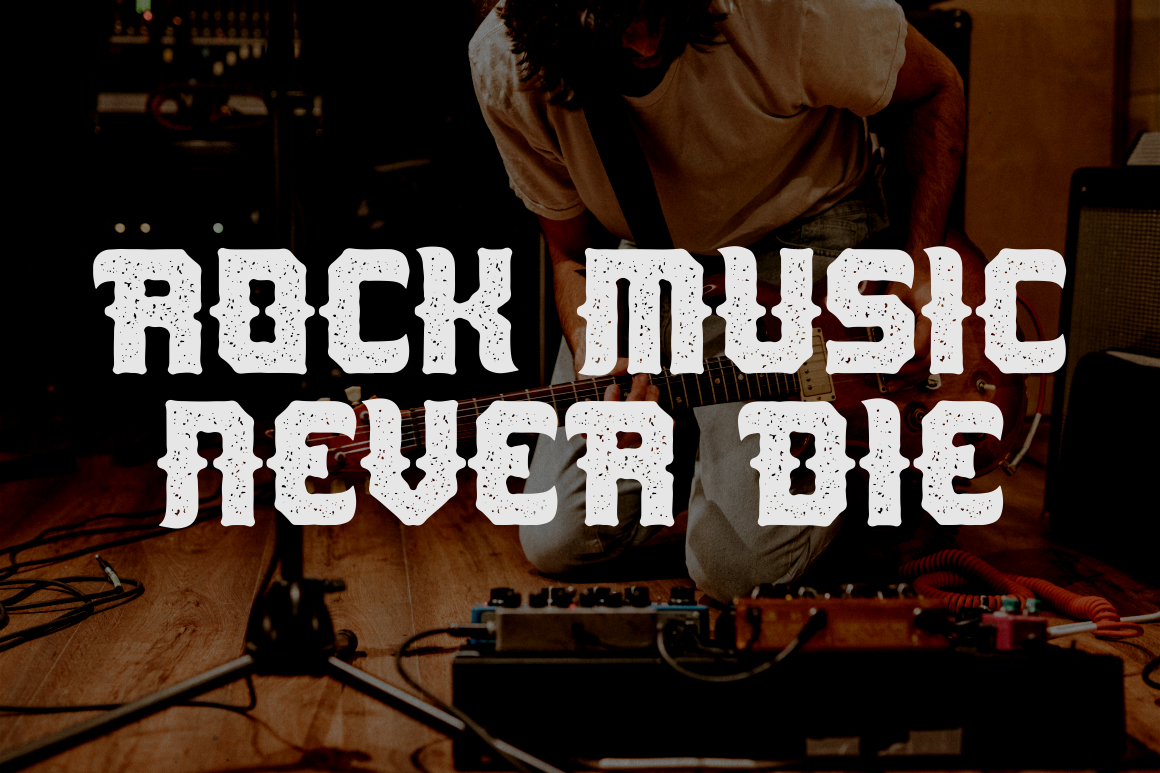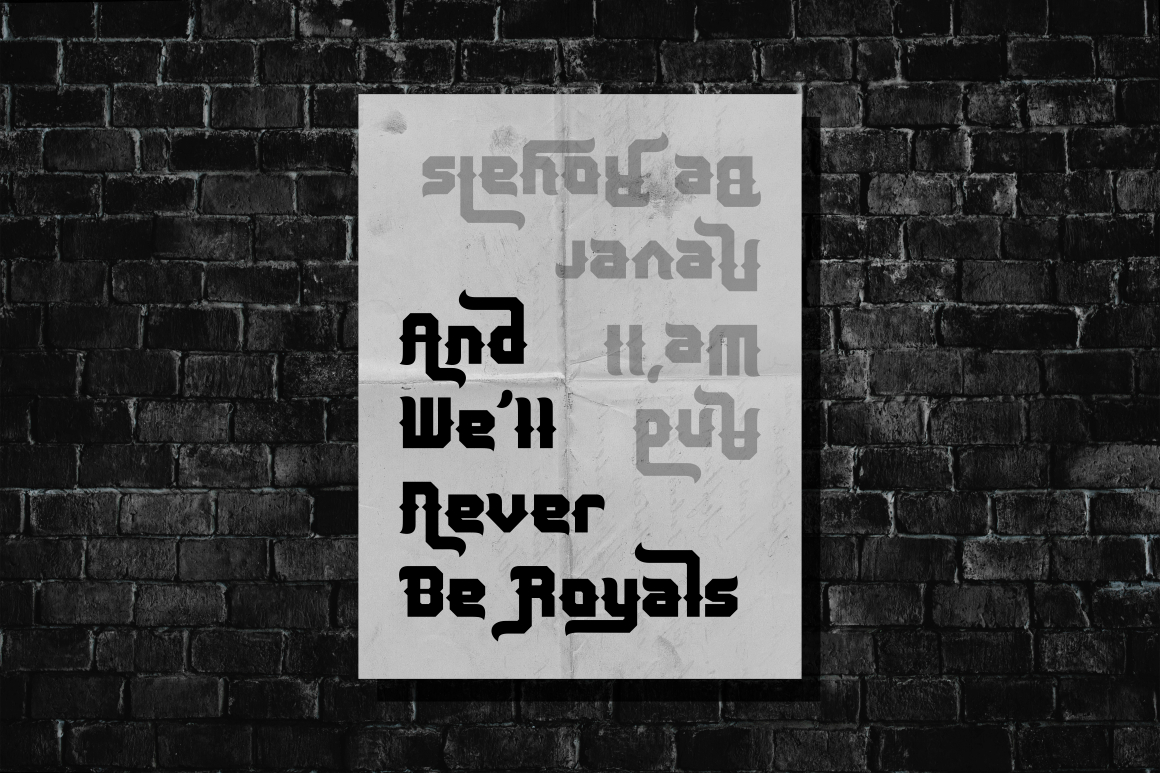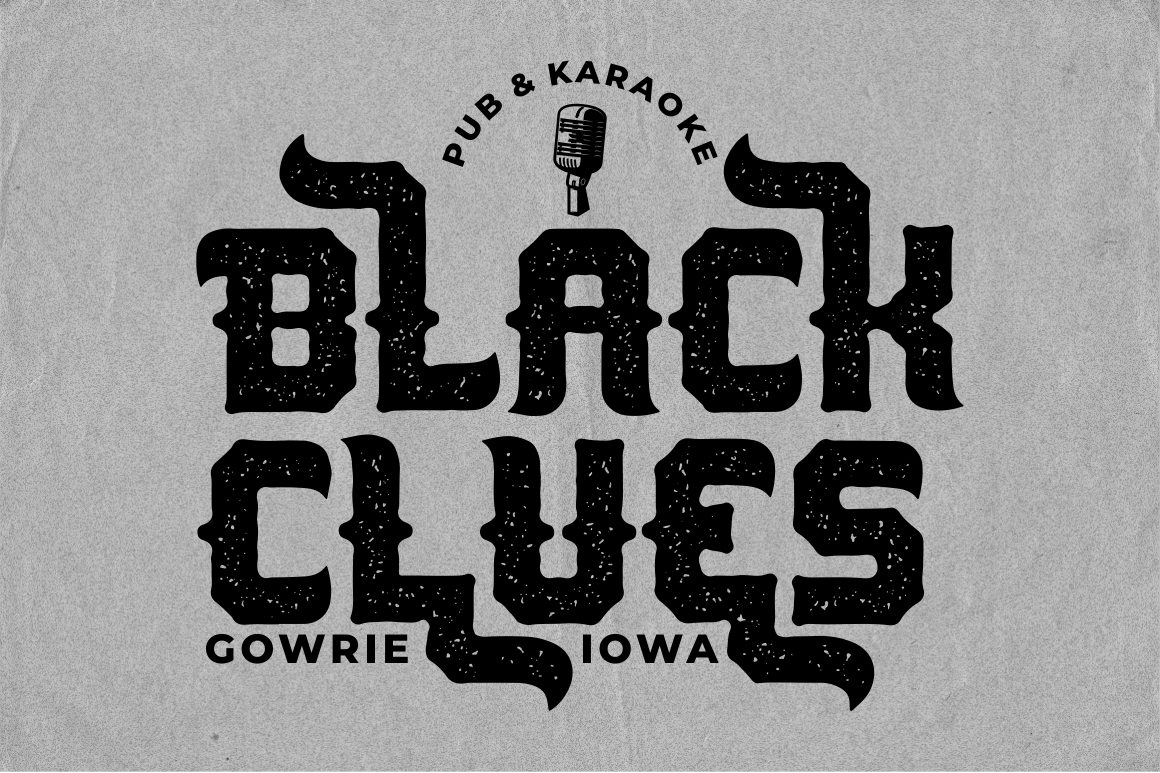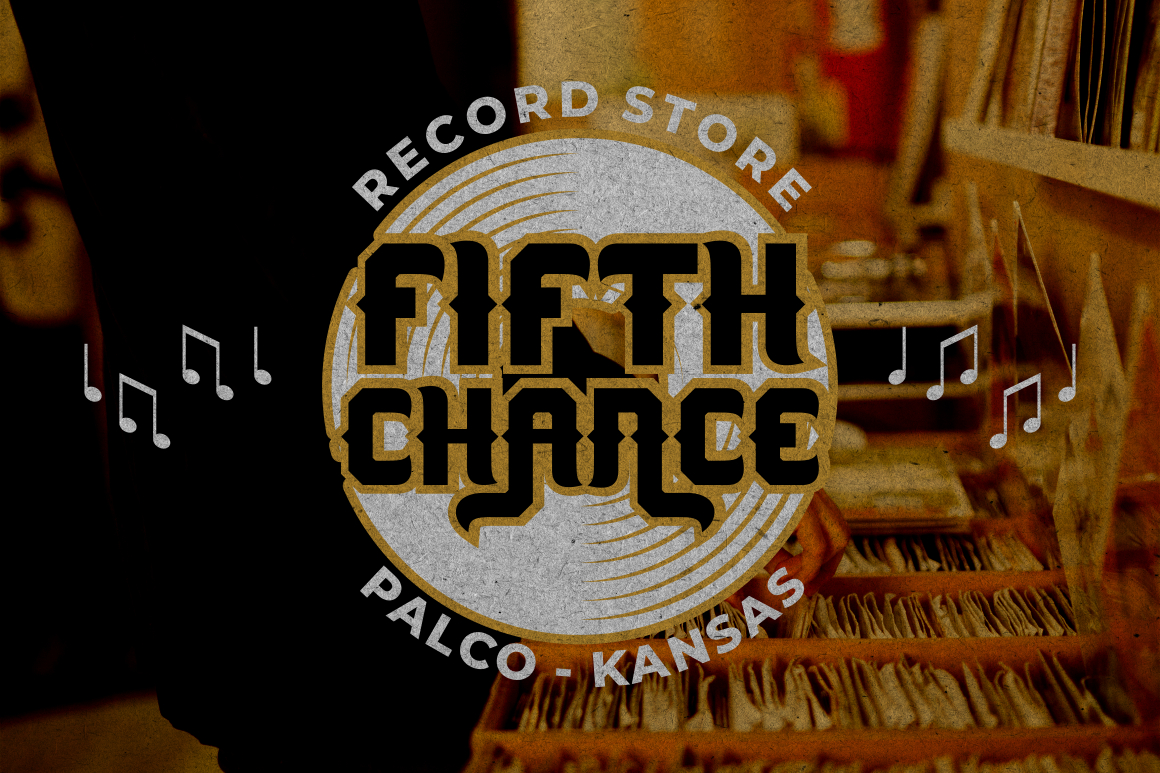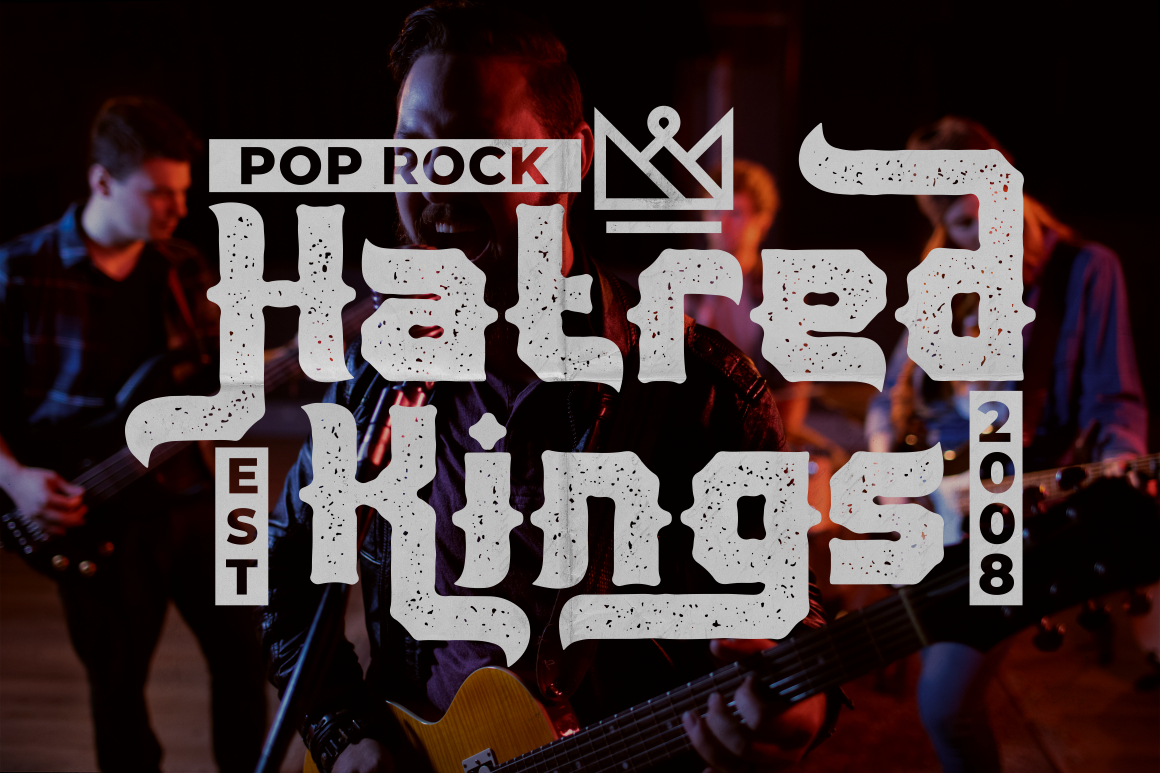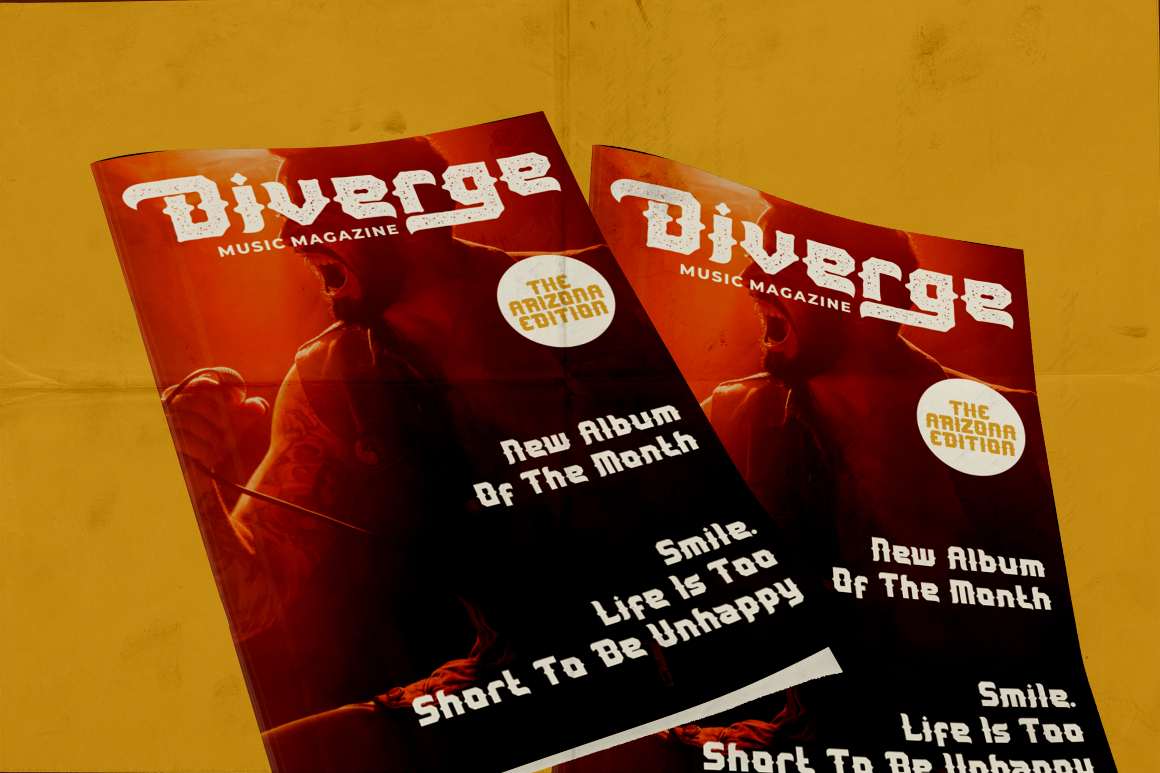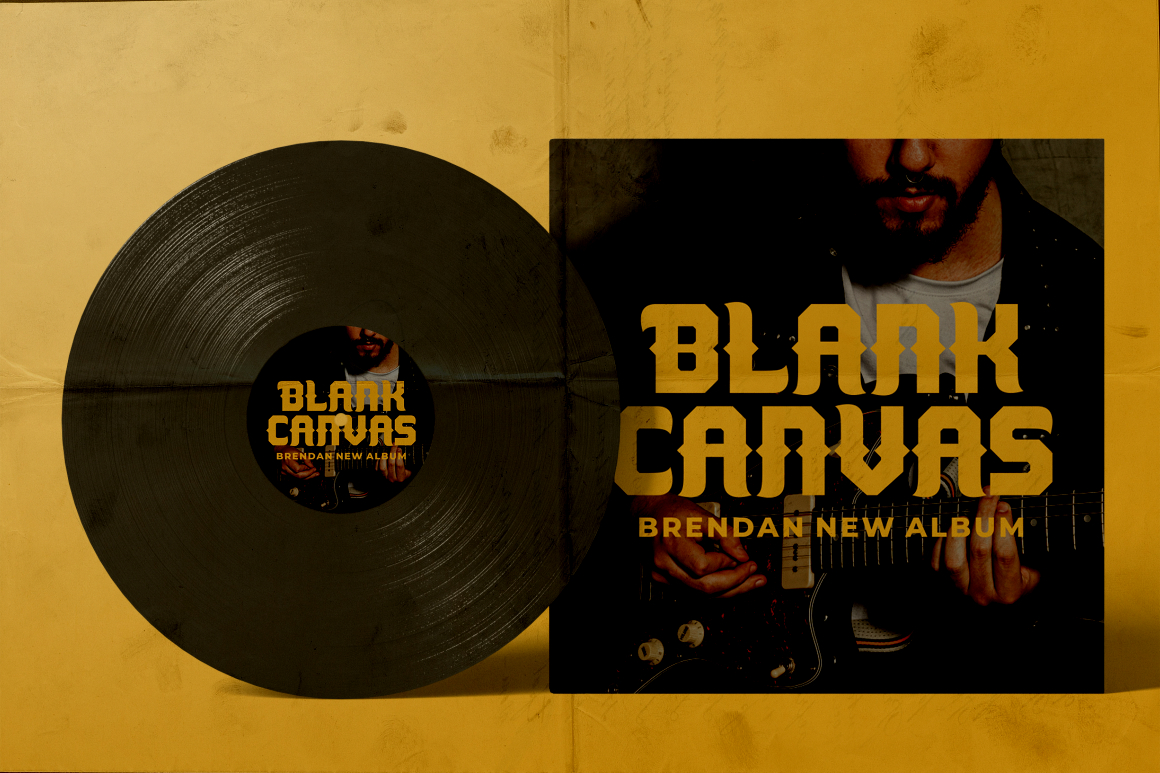
The Snailson Decorative Black Letter
Introducing The Snailson Decorative Black Letter Font, a typeface designed to add a touch of elegance and sophistication to your designs. With its intricate details and Gothic-inspired style, this font is perfect for creating logos, posters, headlines, and other designs that require a unique and eye-catching look.
The Snailson font comes with both uppercase and lowercase letters, making it versatile for various design needs. It also includes ligatures that connect letters beautifully, adding an extra touch of elegance to your designs. With its bold and distinct letterforms, the Snailson font is perfect for creating vintage or retro-themed designs, as well as gothic or horror-inspired graphics.
This font also includes numbers, punctuation, and symbols, making it perfect for creating professional designs that require a complete character set. Additionally, it supports multilingual characters, making it easy to create designs in various languages without any difficulties.
Inspired by the ornate details of Gothic architecture and the intricate designs of illuminated manuscripts, the Snailson font is a perfect choice for designers who want to create designs that evoke a sense of history and tradition. It is a font that blends traditional style with modern functionality, making it perfect for a wide range of design projects.
Whether you’re designing a logo for a new business or creating a poster for an upcoming event, the Snailson font is sure to make your designs stand out from the crowd. Its unique style and versatile features make it an excellent addition to any designer’s toolkit. Try it today and see how it can elevate your designs to the next level.